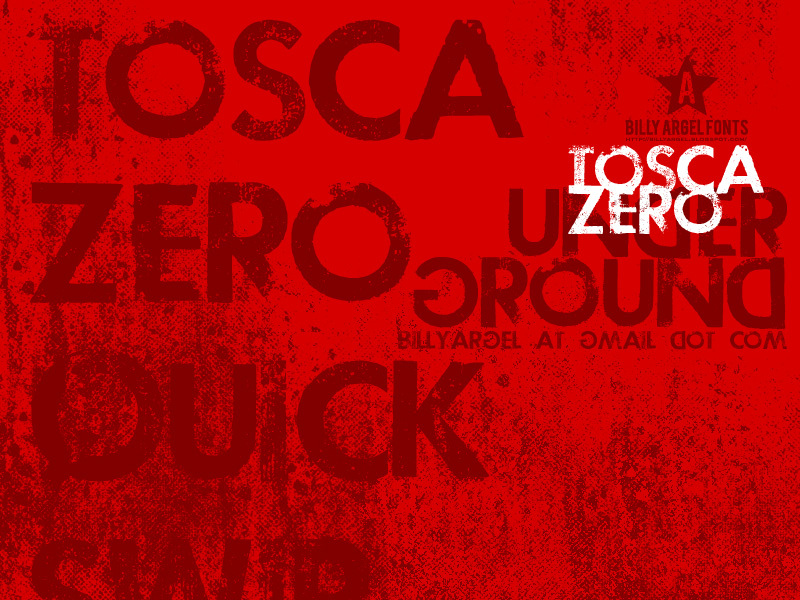
Tosca Zero by Billy Argel is a free eroded display font with broad, forceful capital forms. Heavy strokes and tight spacing create a dense silhouette, broken by scratches, chips, and larger patches of wear. The damage varies across the lettering, so the surface looks battered rather than covered by a uniform filter.
Rooted in grunge and industrial graphics, it is especially convincing on music posters and action-game title cards, with enough brute force for streetwear branding and rough-edged beverage packaging aimed at alternative audiences that favor distressed visual texture. Scarred letter surfaces can merge directly with cracked-concrete or scraped-metal imagery.